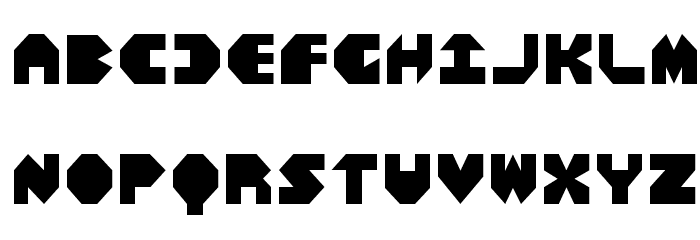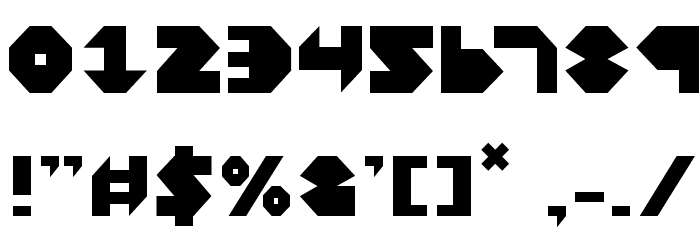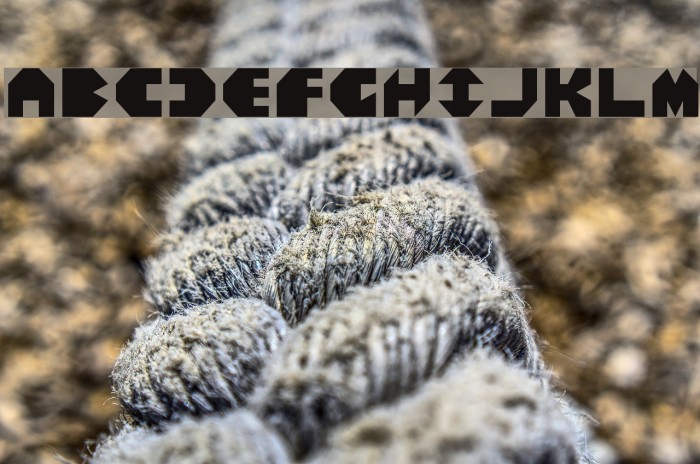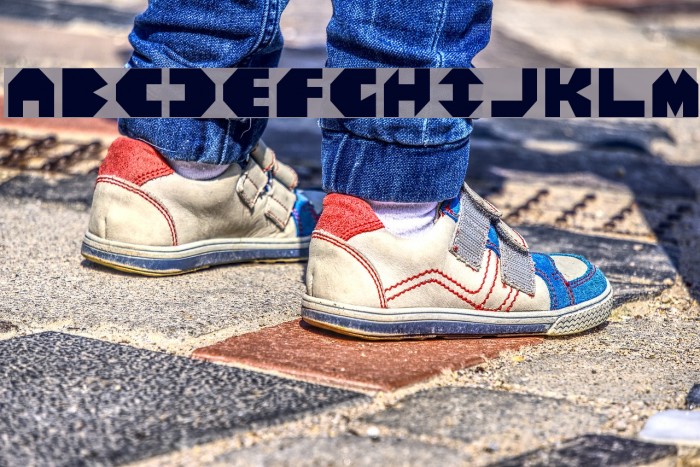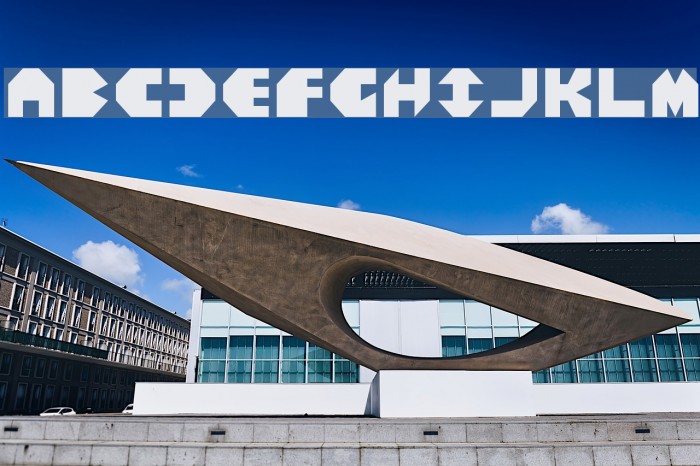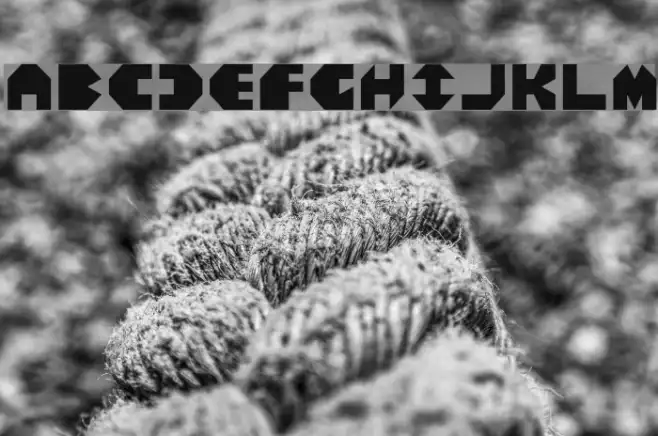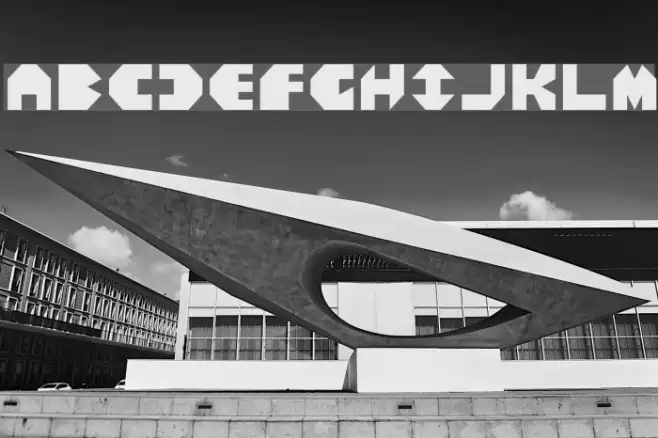
Bal-Astaral Font
This font features a bold, geometric design with sharp angles and a blocky appearance. The characters are constructed with a uniform thickness, creating a strong and impactful visual presence. The uppercase and lowercase letters maintain a consistent style, emphasizing the angular and edgy aesthetic. Numbers and special characters follow the same design principles, ensuring a cohesive look across all glyphs. The font's unique style makes it stand out, ideal for projects that require a modern and assertive typeface.
A bold, geometric font with sharp angles and a blocky design.
- Proposed Projects: Ideal for branding, posters, headlines, and any design that requires a modern, bold statement.